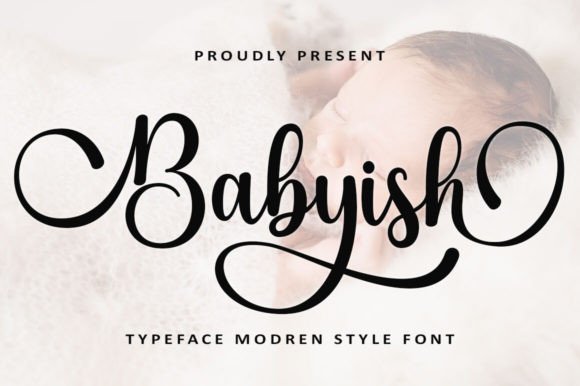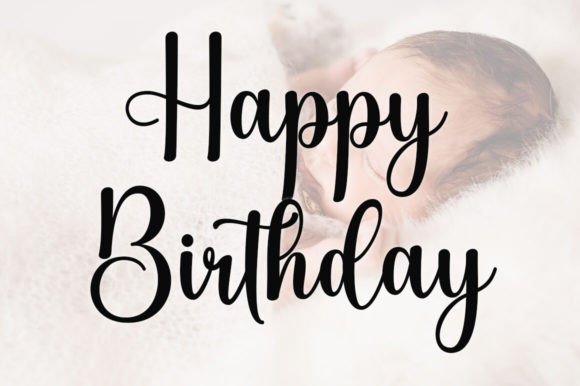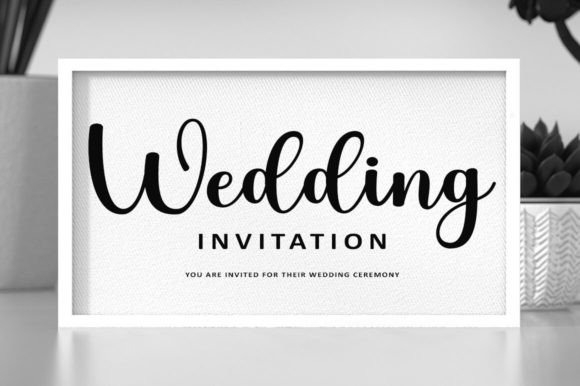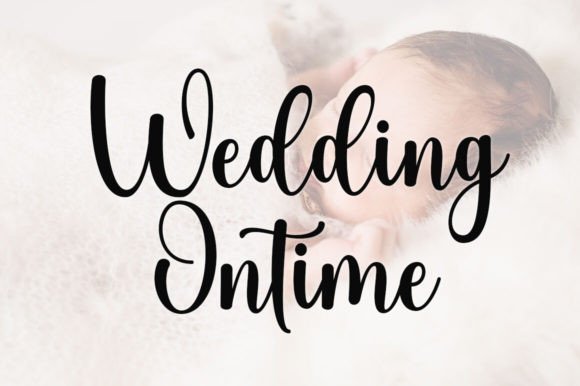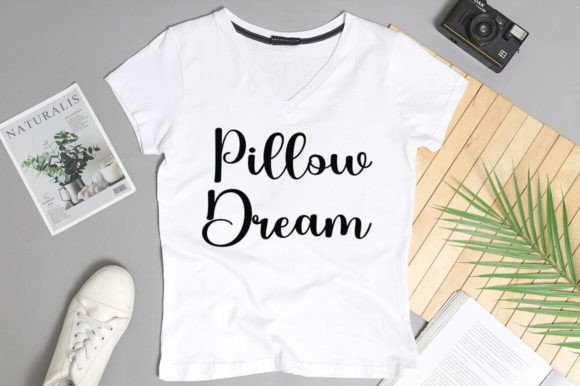
Babyish Font
Babyish Script is a modern calligraphy script perfect for wedding invitations, calligraphy logos for branding, elegant websites, personalized gifts, social media posts and anything else your heart desires!
Included with simple week is a complete set of initial and final lowercase letter strokes, uppercase replacements, and heart connecting strokes to create a realistic handwritten calligraphy look for your designs.